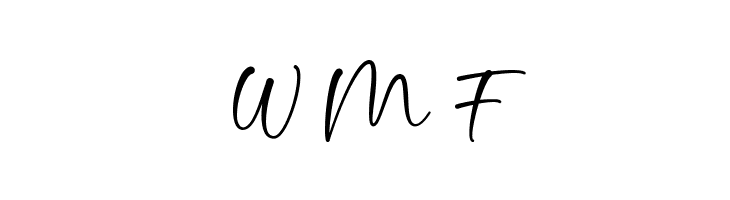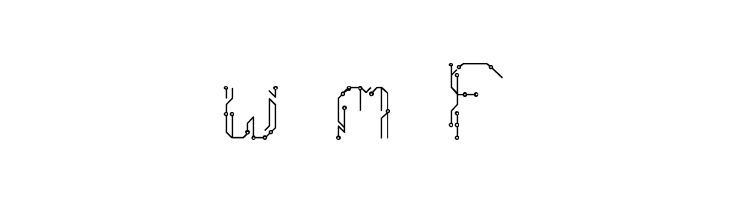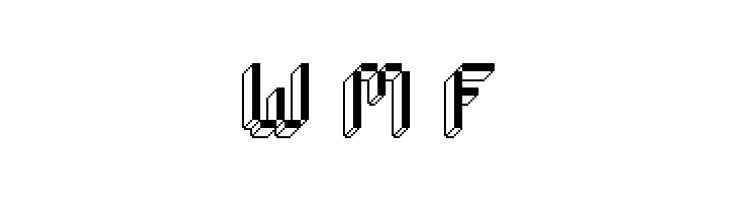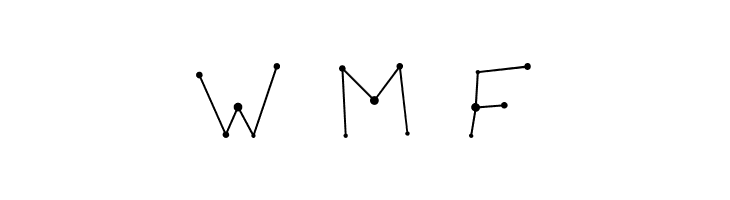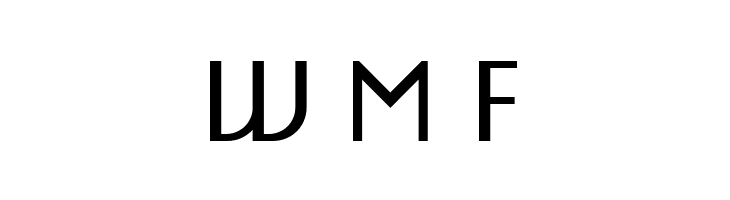
A 3D block-style font with a retro, pixelated aesthetic.
A decorative, tech-inspired font with circuit-like patterns.
A modern, geometric font with clean lines and a sleek design.
A lively and elegant script font with fluid strokes and graceful movement.
A constellation-themed font with characters formed by dots and connecting lines.